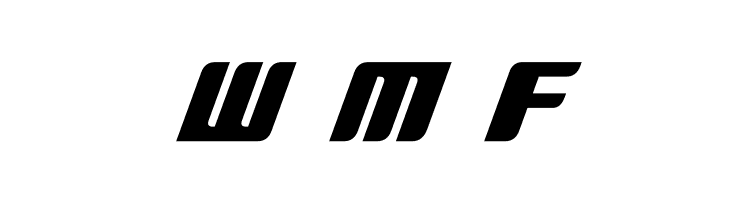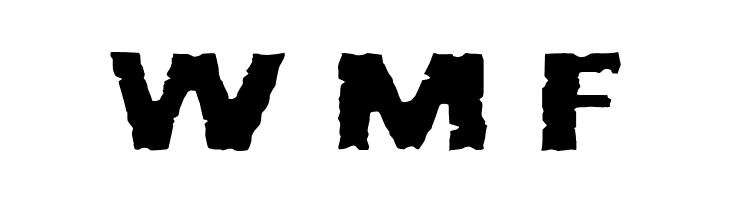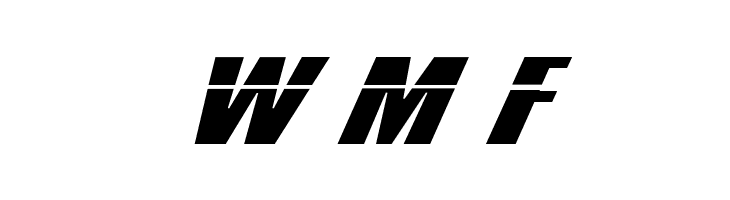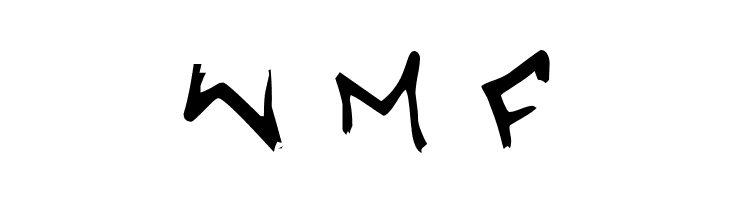
A bold, italicized font with a futuristic and sporty design.
A bold, distressed font with a rugged, grunge-like appearance.
A bold, italicized font with a dynamic and impactful style.
A bold, jagged font with a horror-inspired, torn appearance.
A bold, graffiti-inspired font with sharp, angular lines and an energetic style.